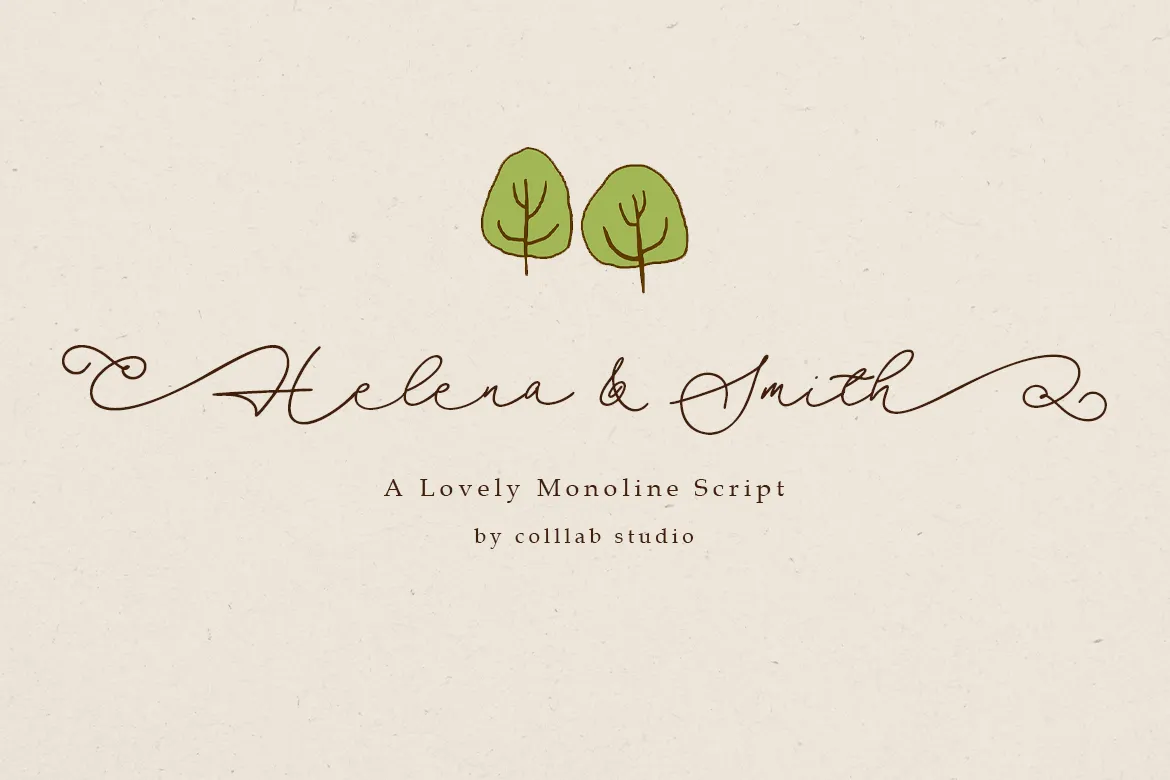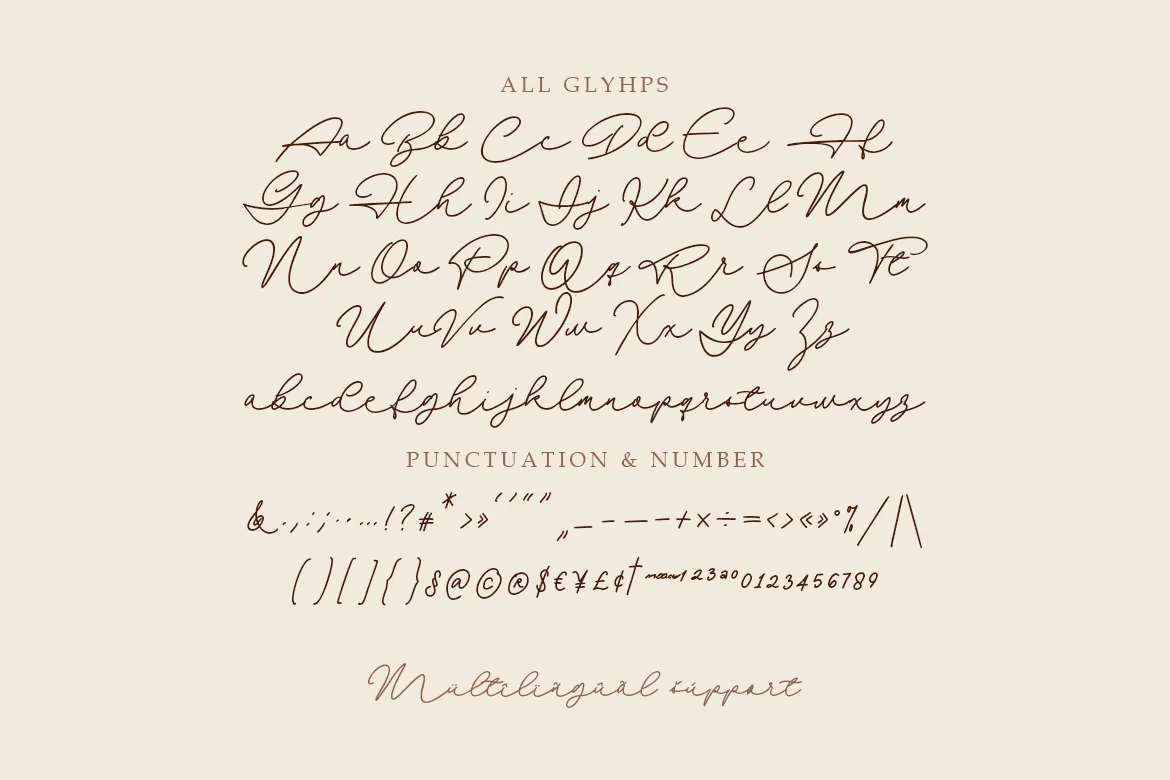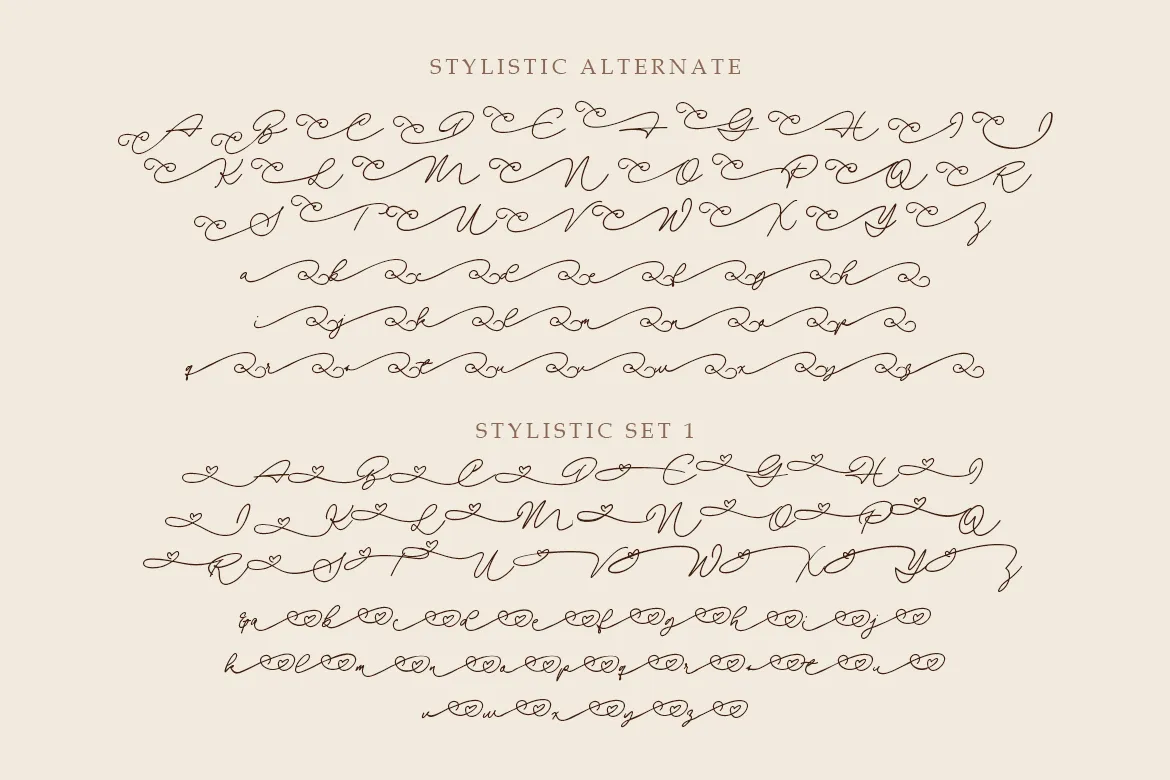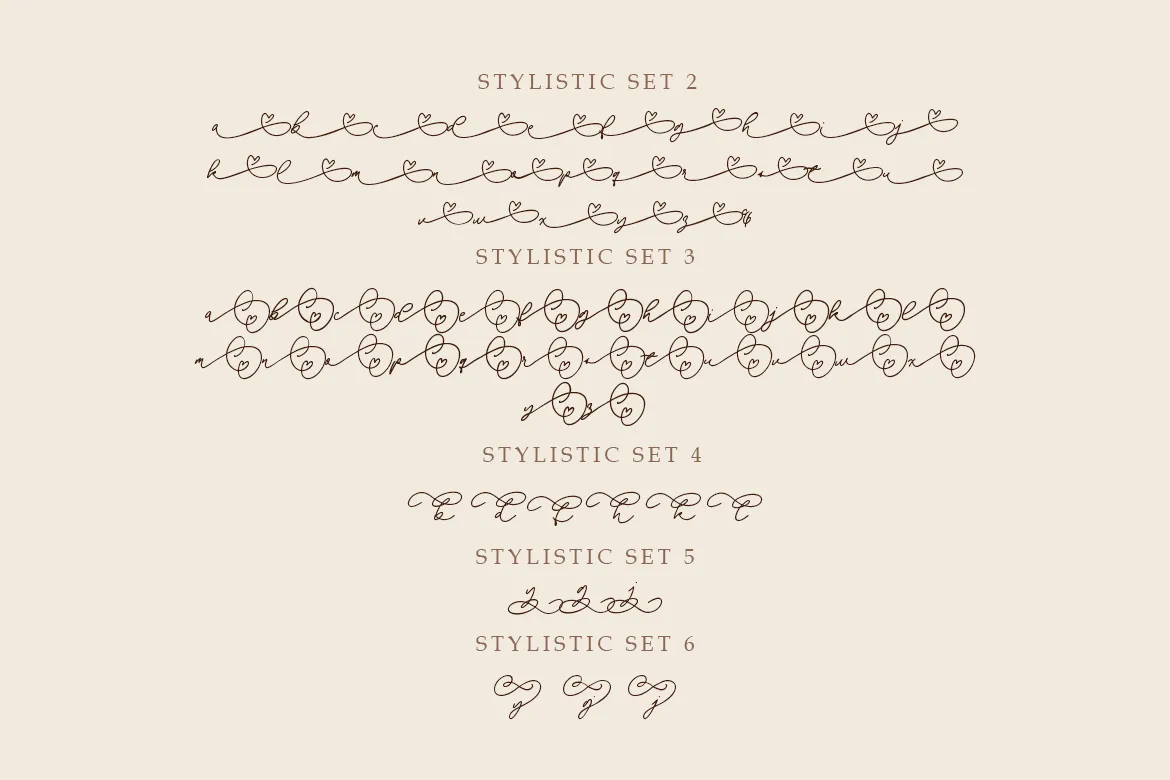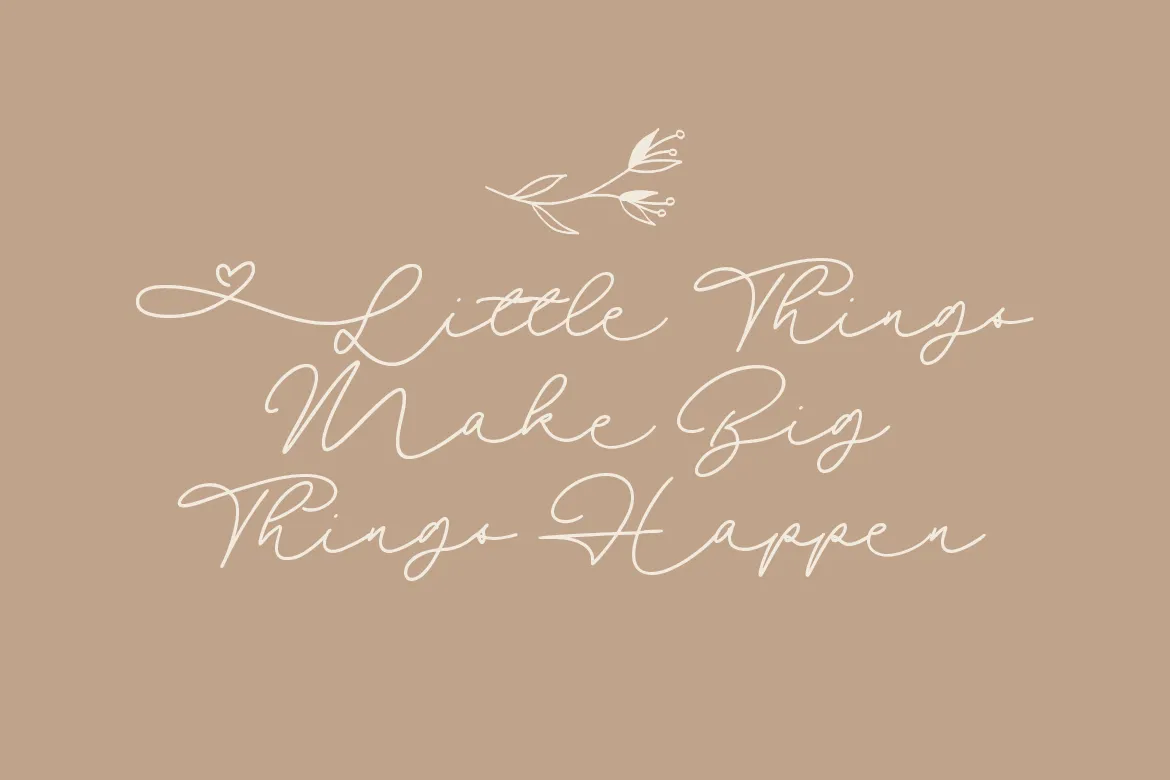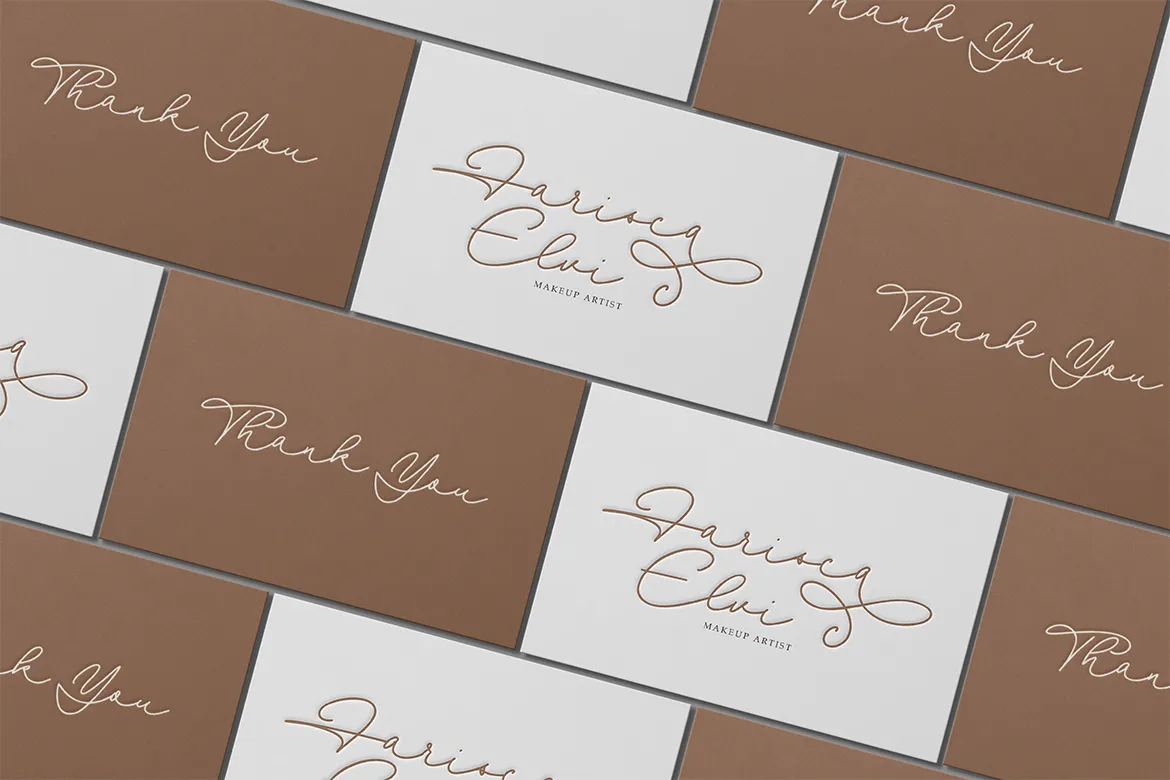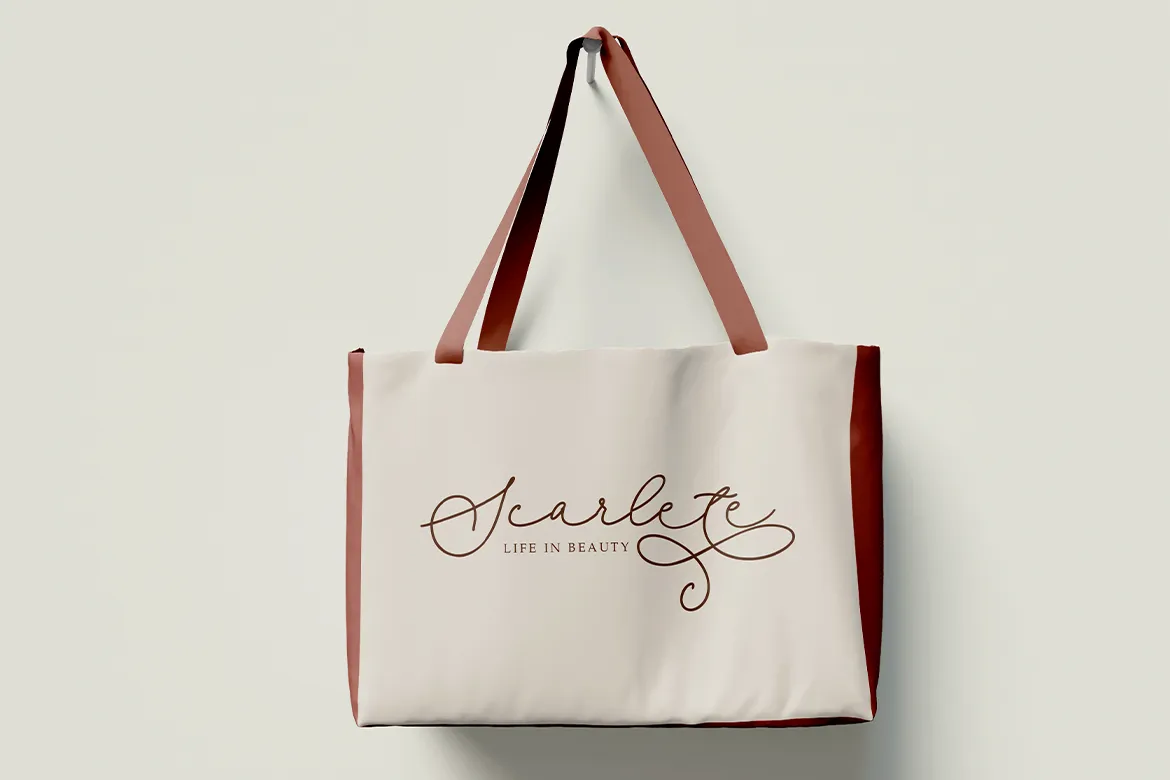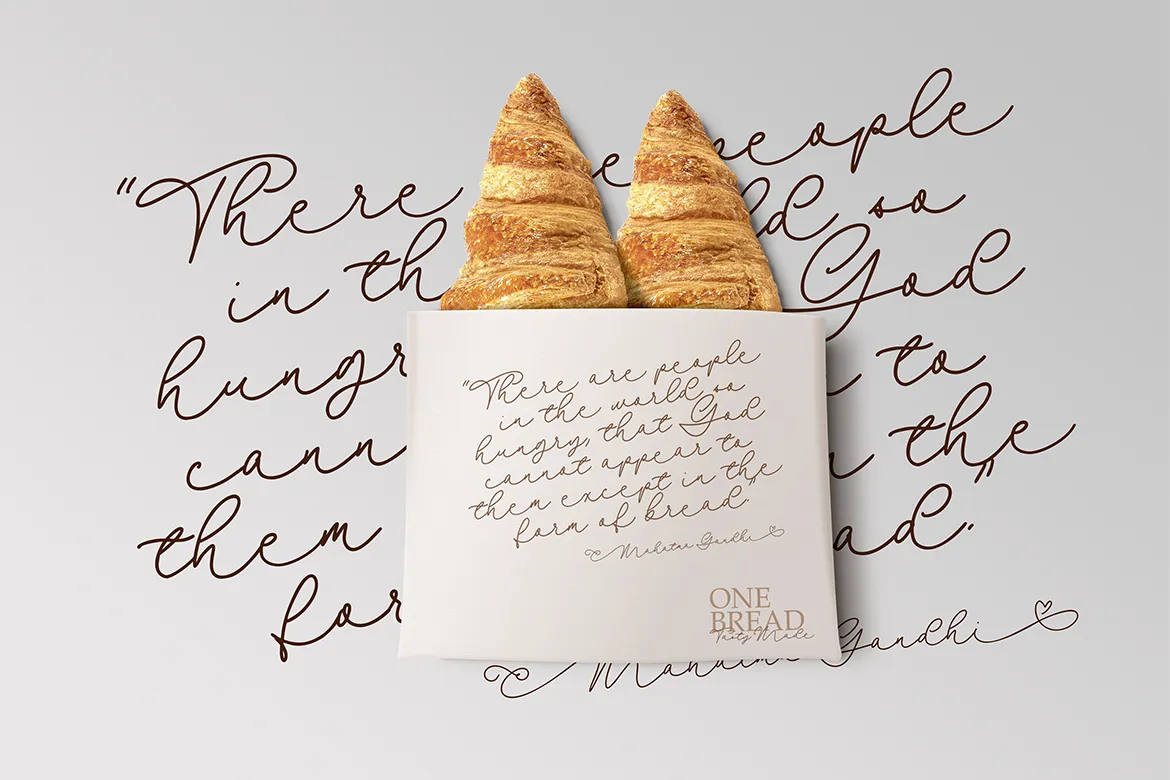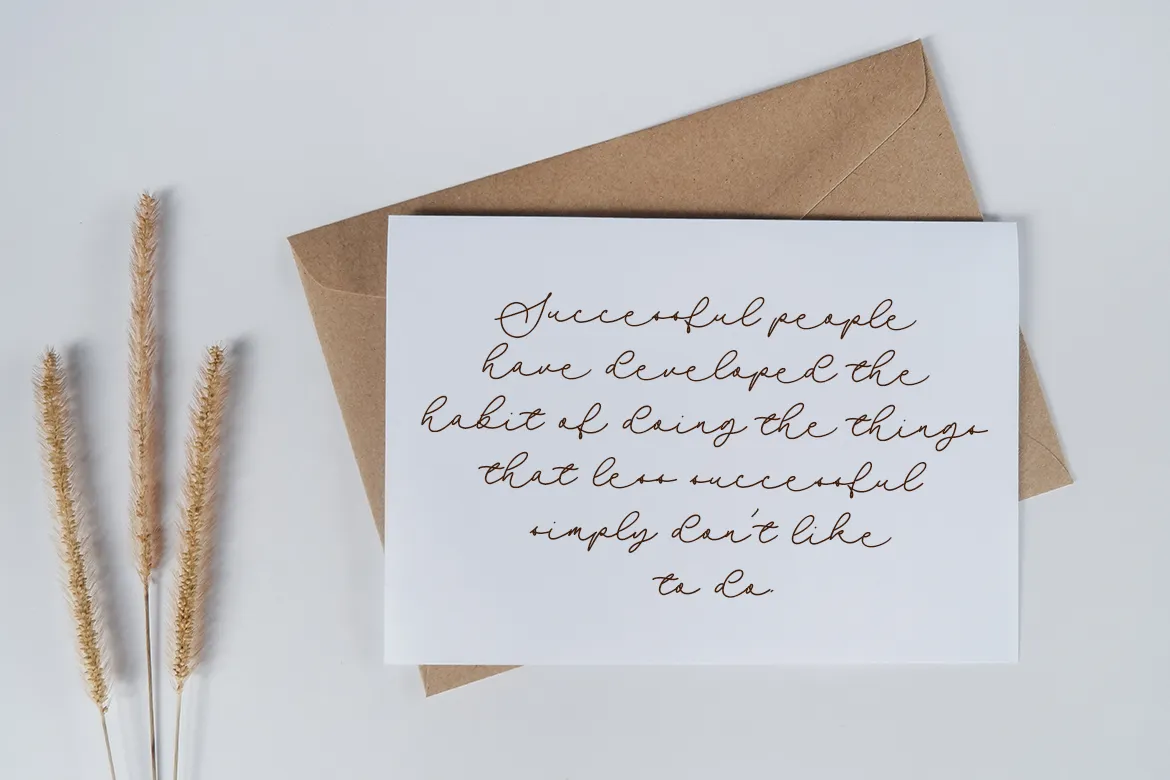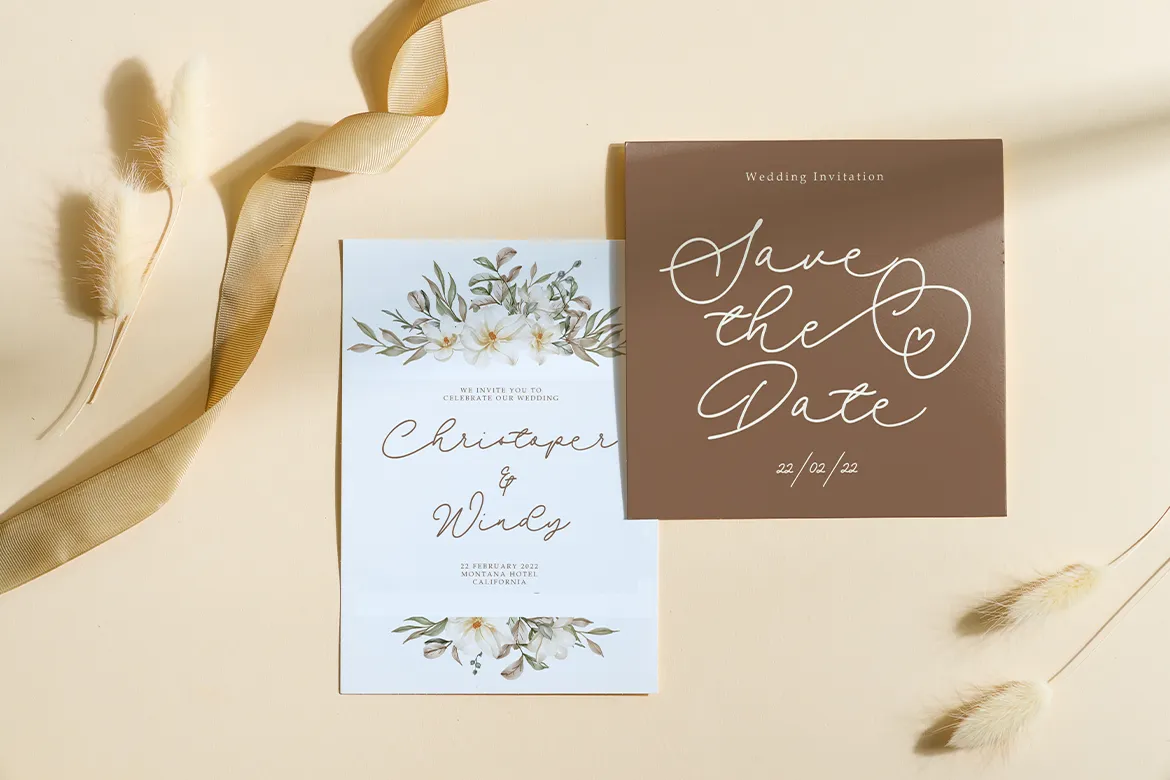
Helena & Smith
Finding the perfect font for your big-brand name can be very daunting. There are hundreds and hundreds of fonts to choose from and most of them aren’t anywhere near luxurious enough for you.
And even if you find an acceptable font, finding the right amount of kerning pairs so that your logo looks just right? Stressful!
Helena and Smith is a Lovely Script comes with a friendly font since you want your customers to recall the extraordinary experience they had when buying your product or experiencing your service. it comes with huge number of alternates, swashes and ligatures.
• 400 + Glyphs,
• 9 Sets stylistics alternates
• Swashes & Ligatures
• Ordinals
Helena and Smith is a lovely, elegant script font crafted for premium branding and unforgettable customer experiences. Designed with over 400 glyphs, 9 sets of stylistic alternates, ligatures, swashes, and ordinals, this font gives you total creative control over your typography. Its friendly yet refined appearance makes it perfect for high-end logos, packaging, and brand identities that need a personal, luxurious touch.